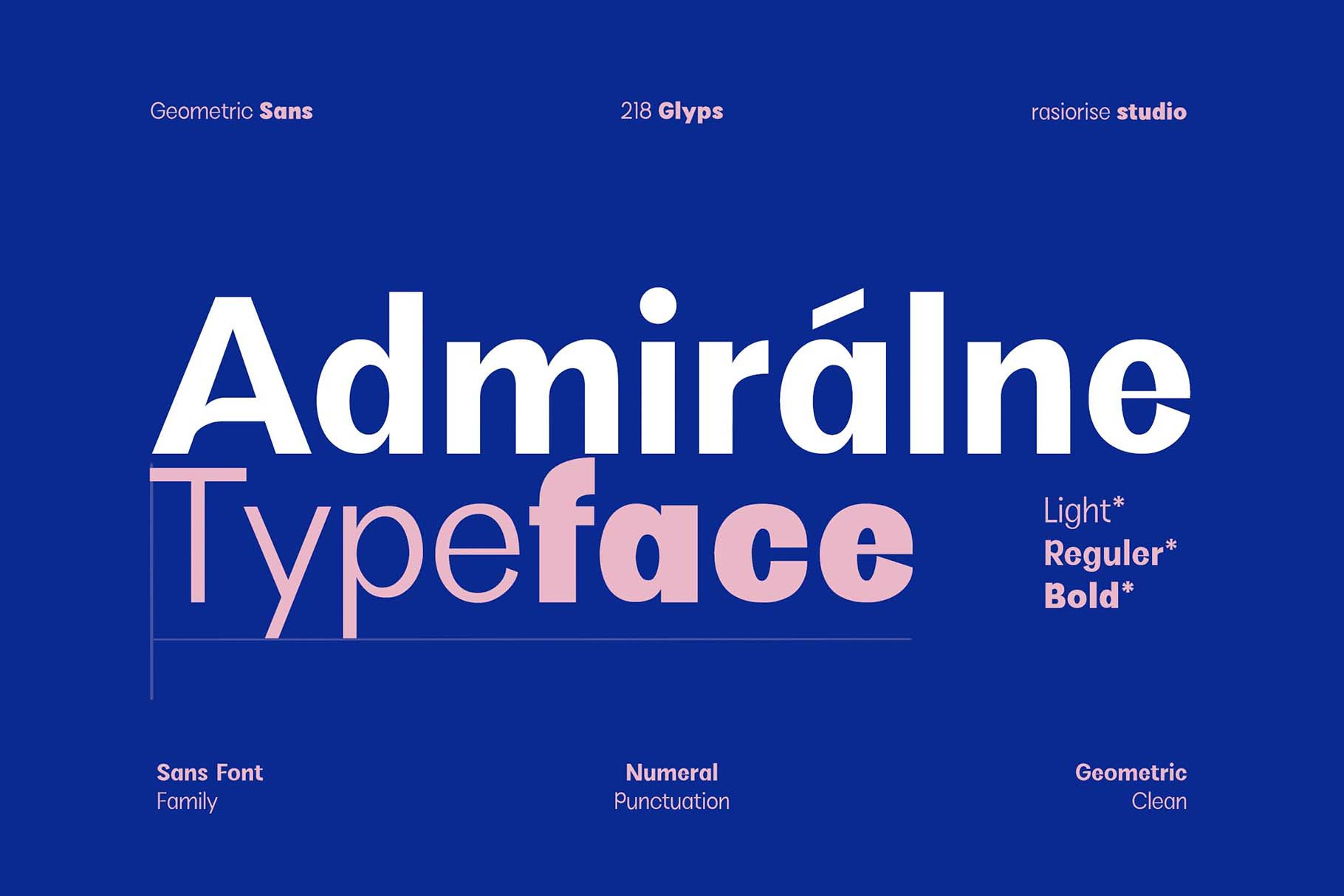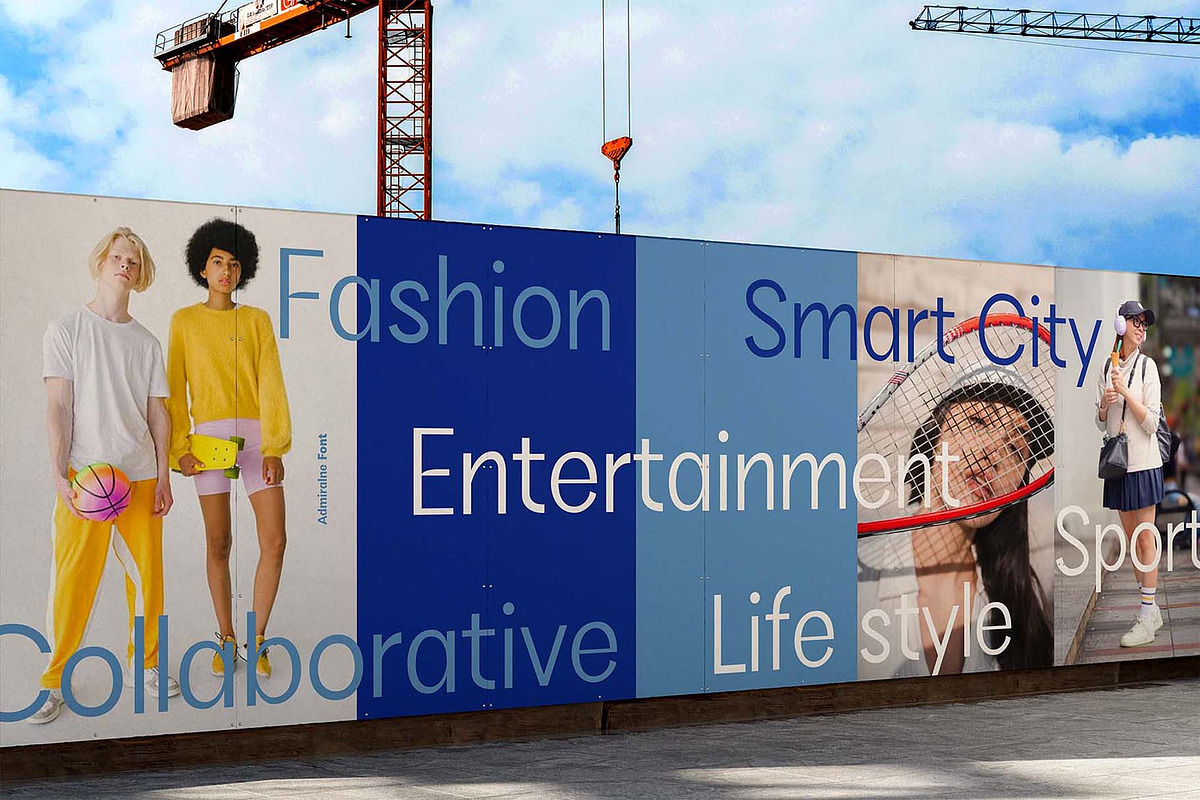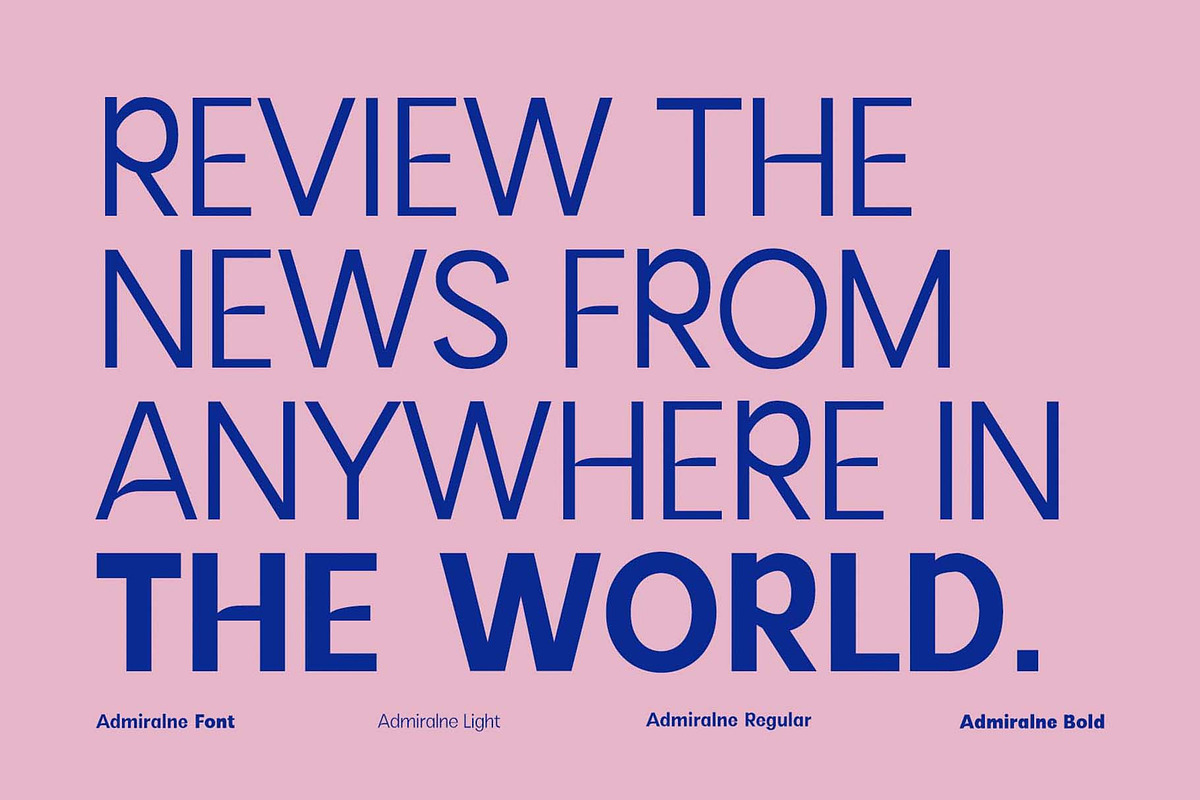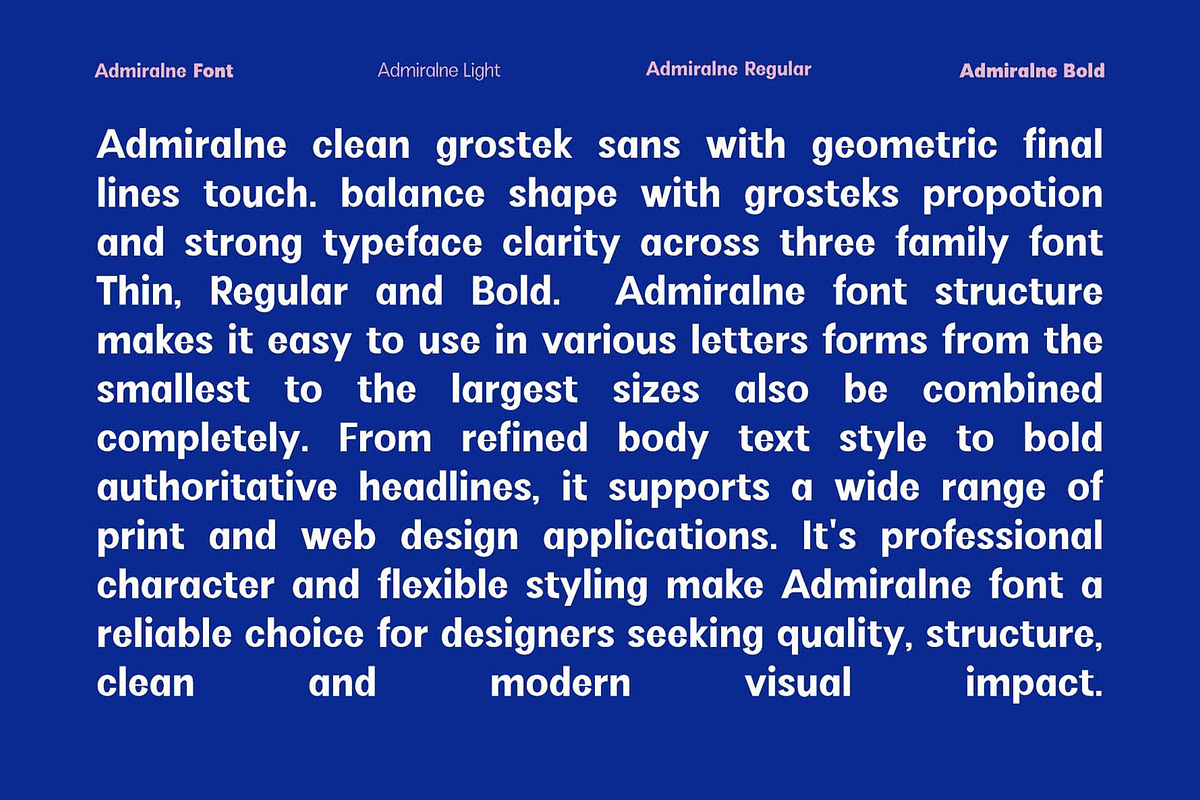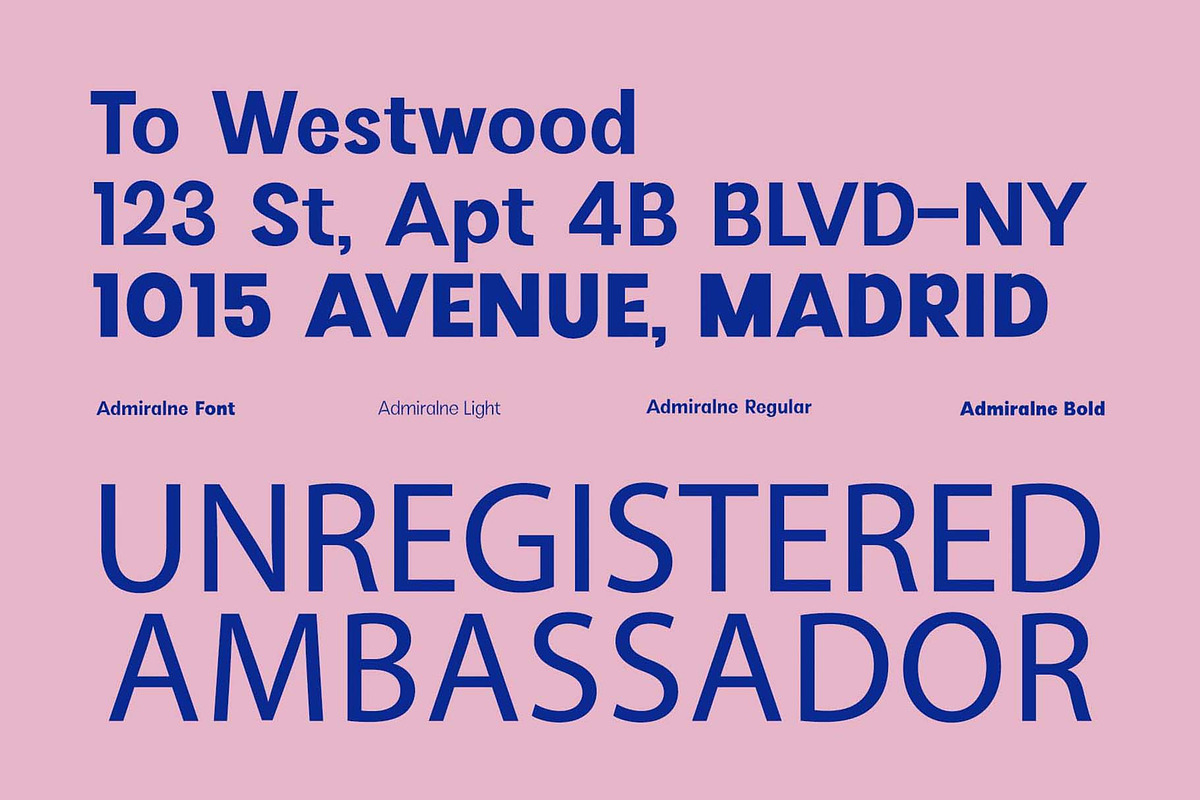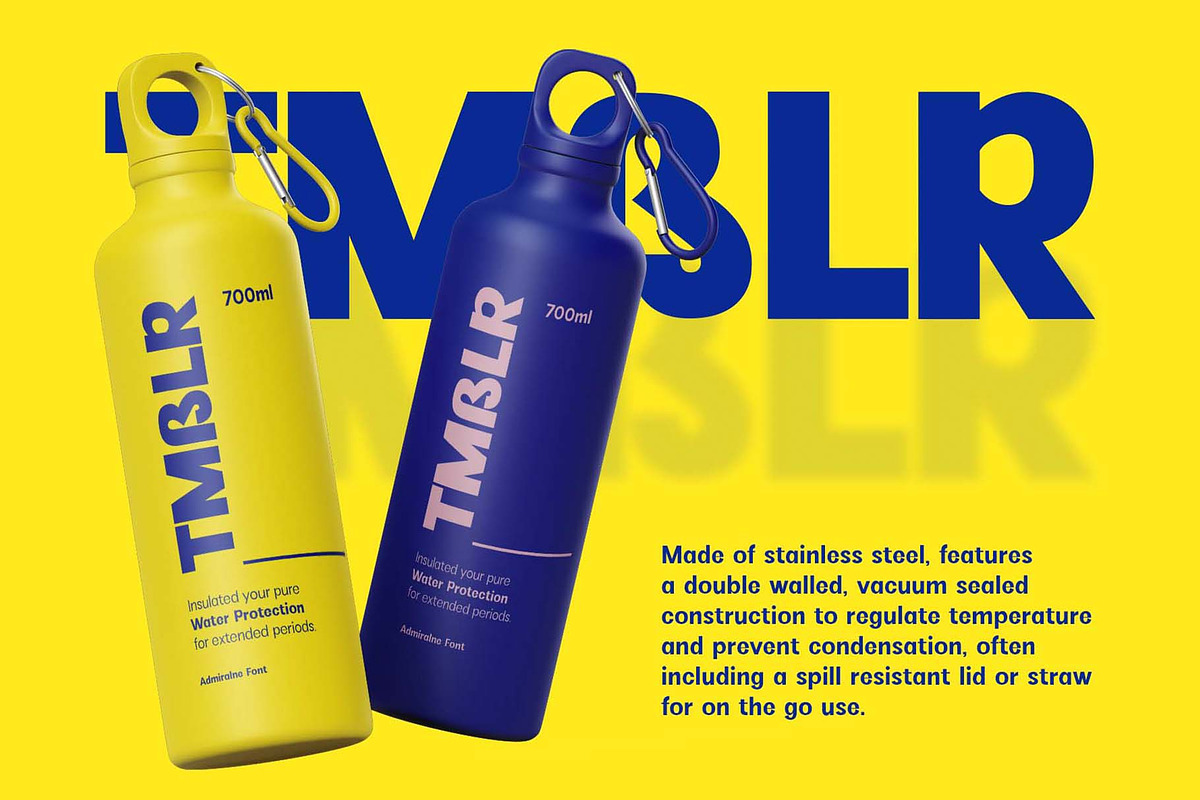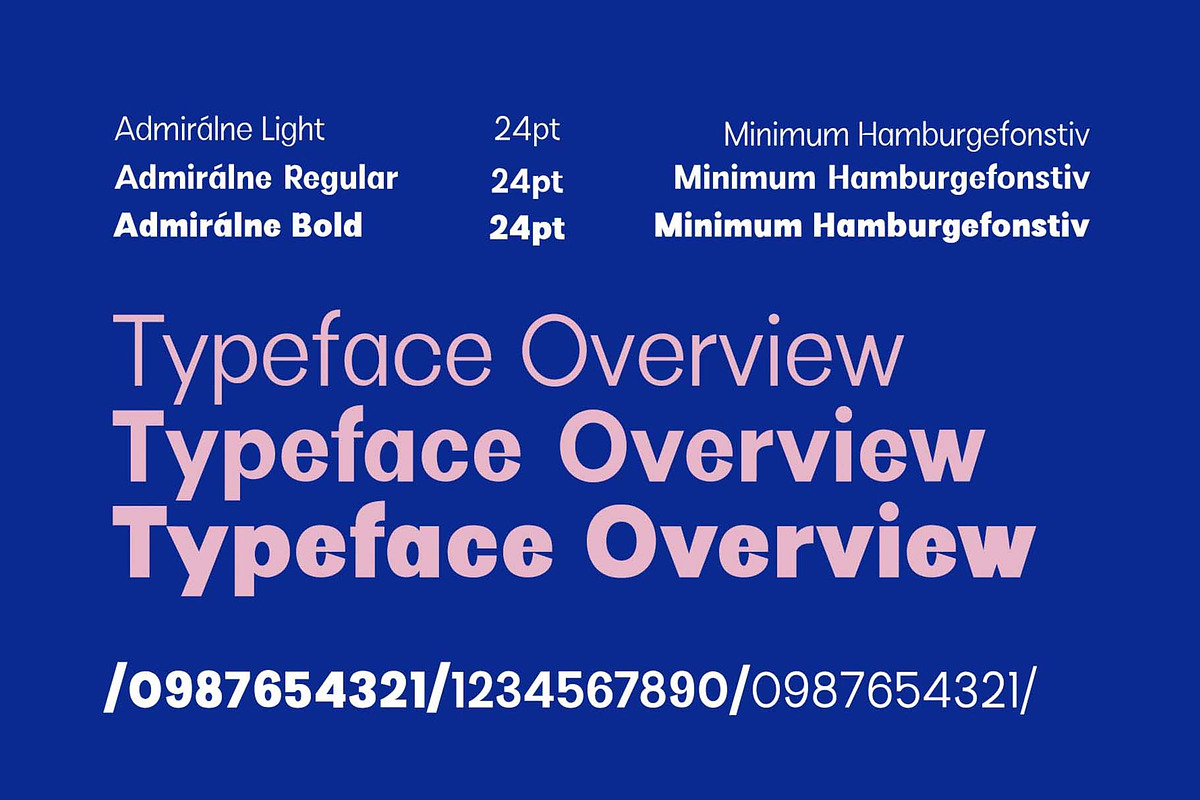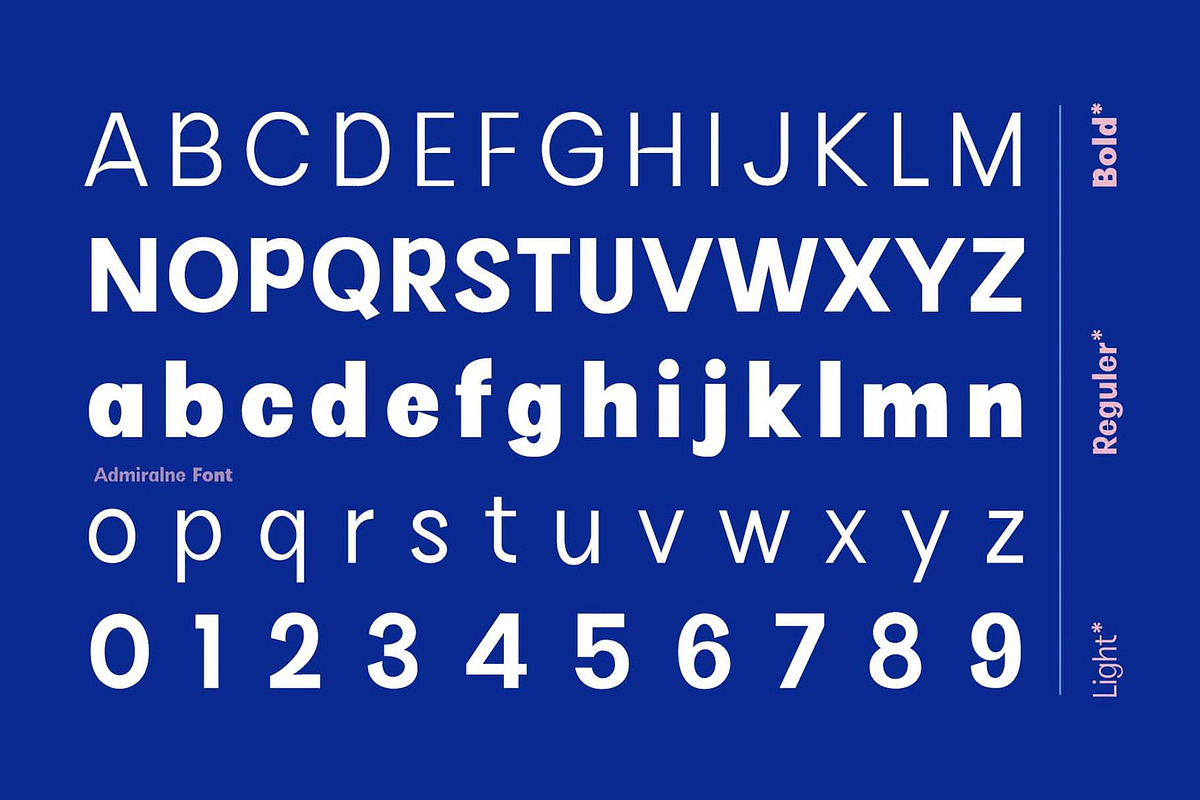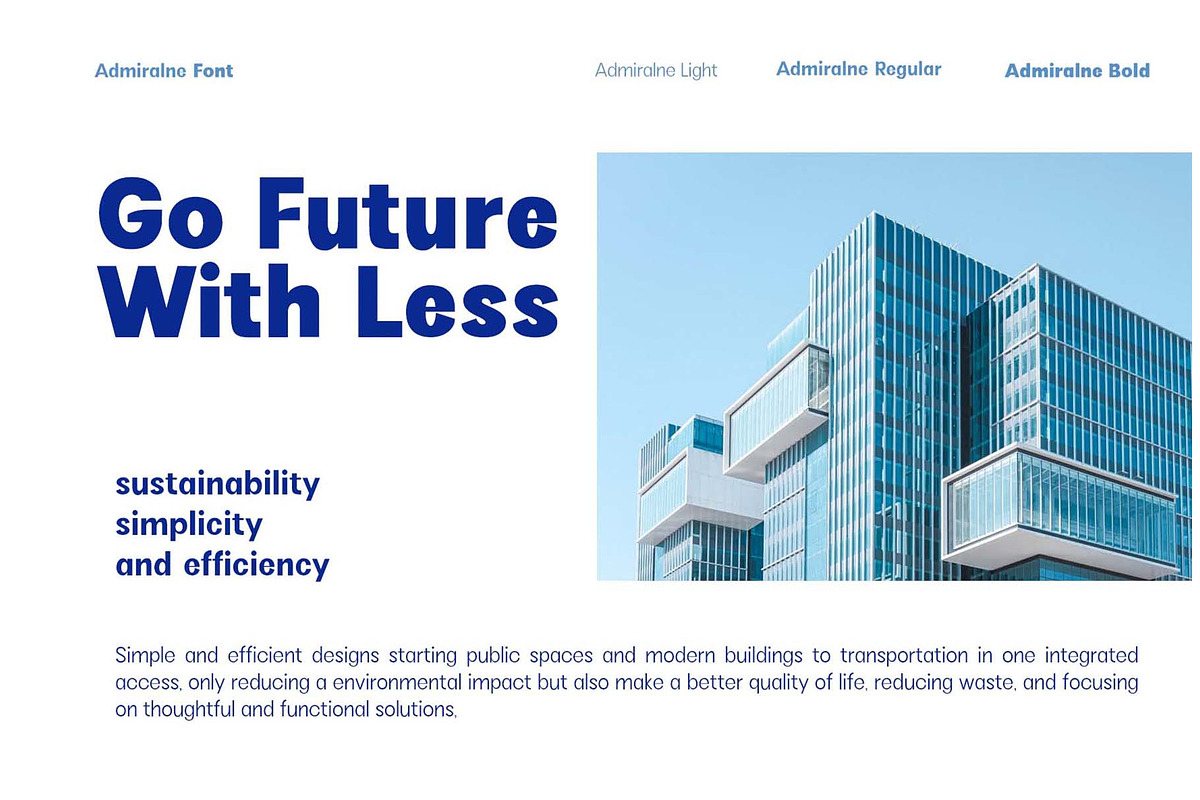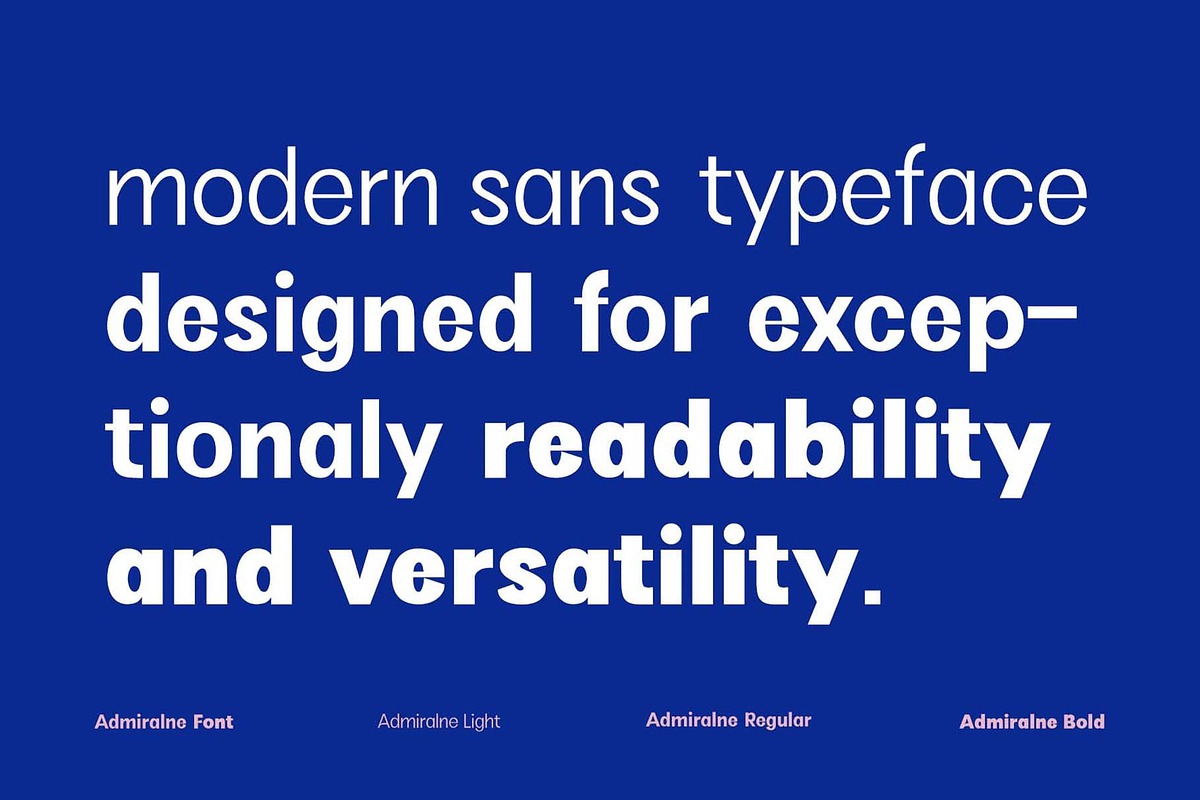
Admiralne Sans Family Font
Admiralne is a clean grotesque sans-serif typeface with a subtle geometric influence, designed to deliver clarity, balance, and versatility. Its carefully crafted letterforms combine classic grotesque proportions with modern precision, creating a standout visual identity that feels both professional and approachable.
Light, Regular and Bold Family Font.